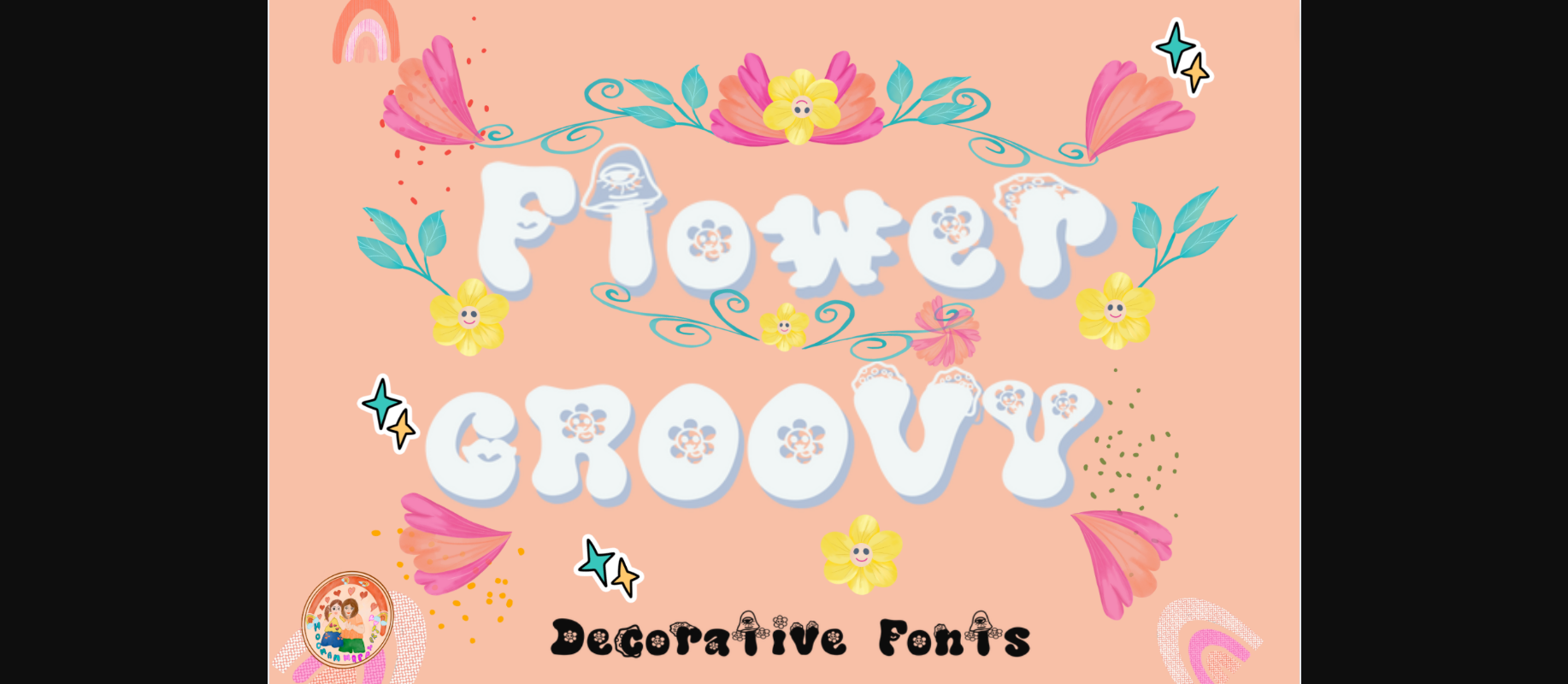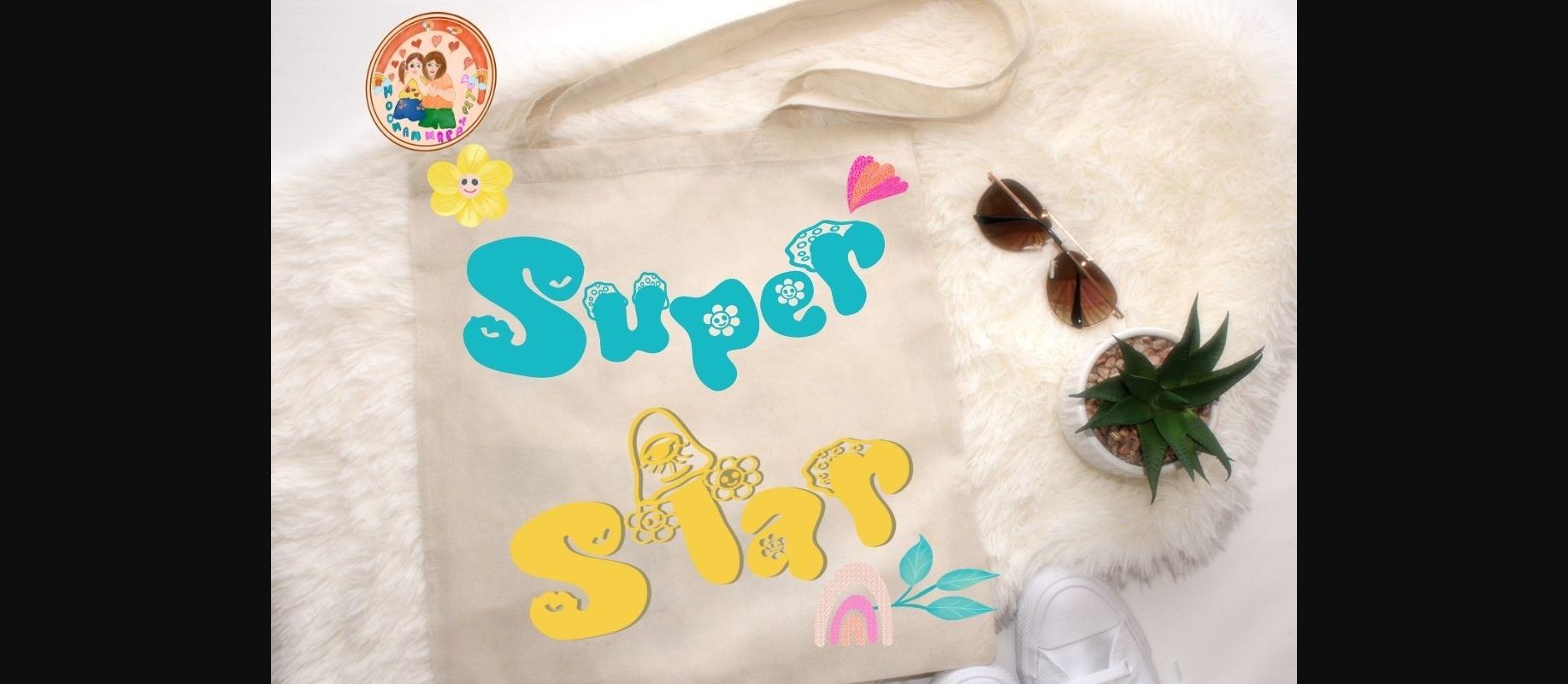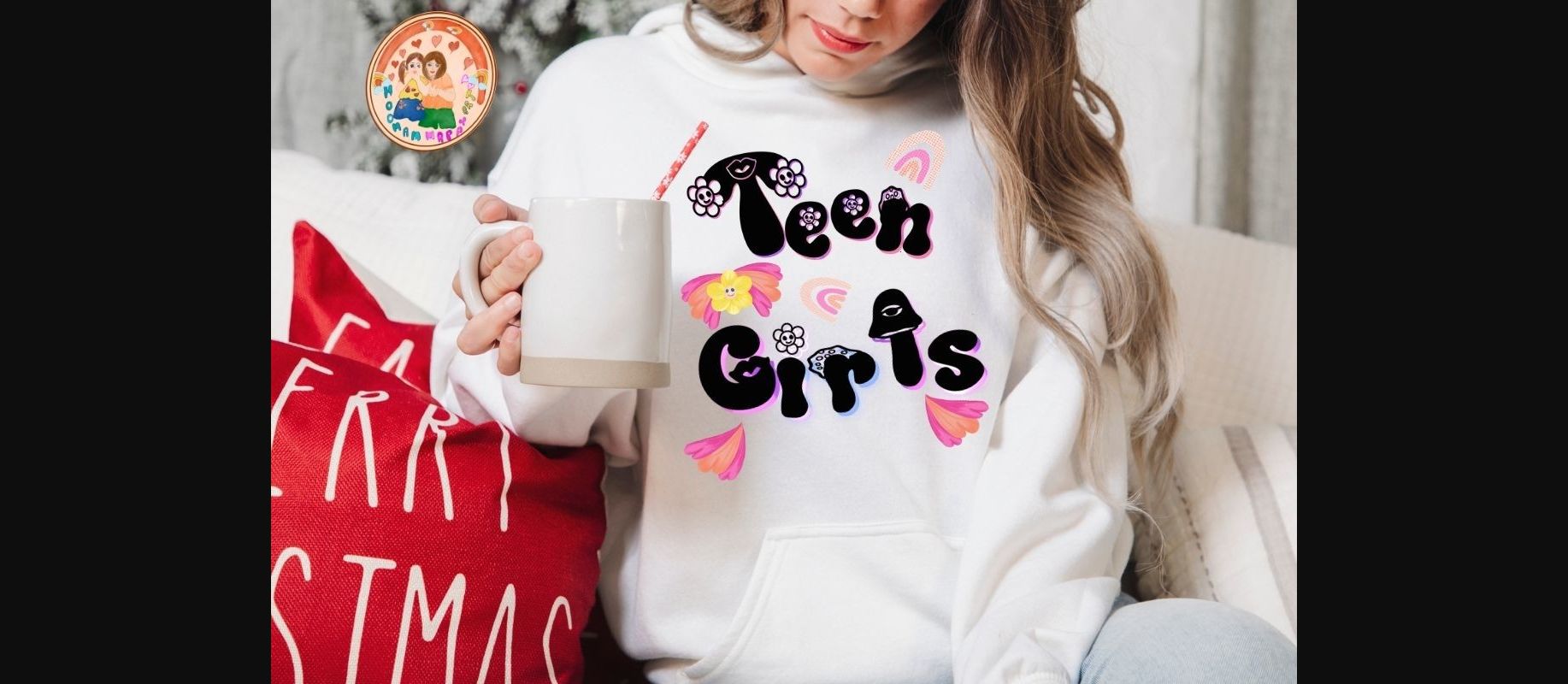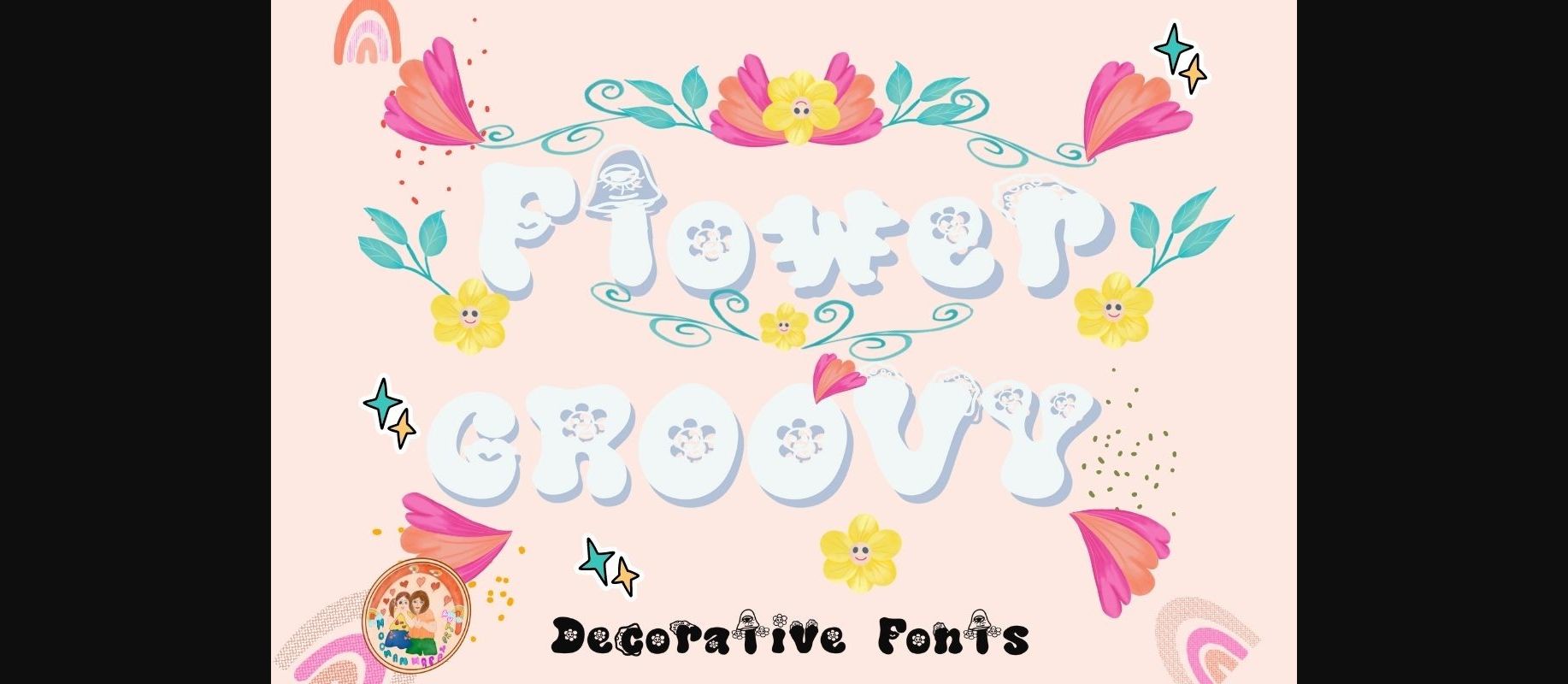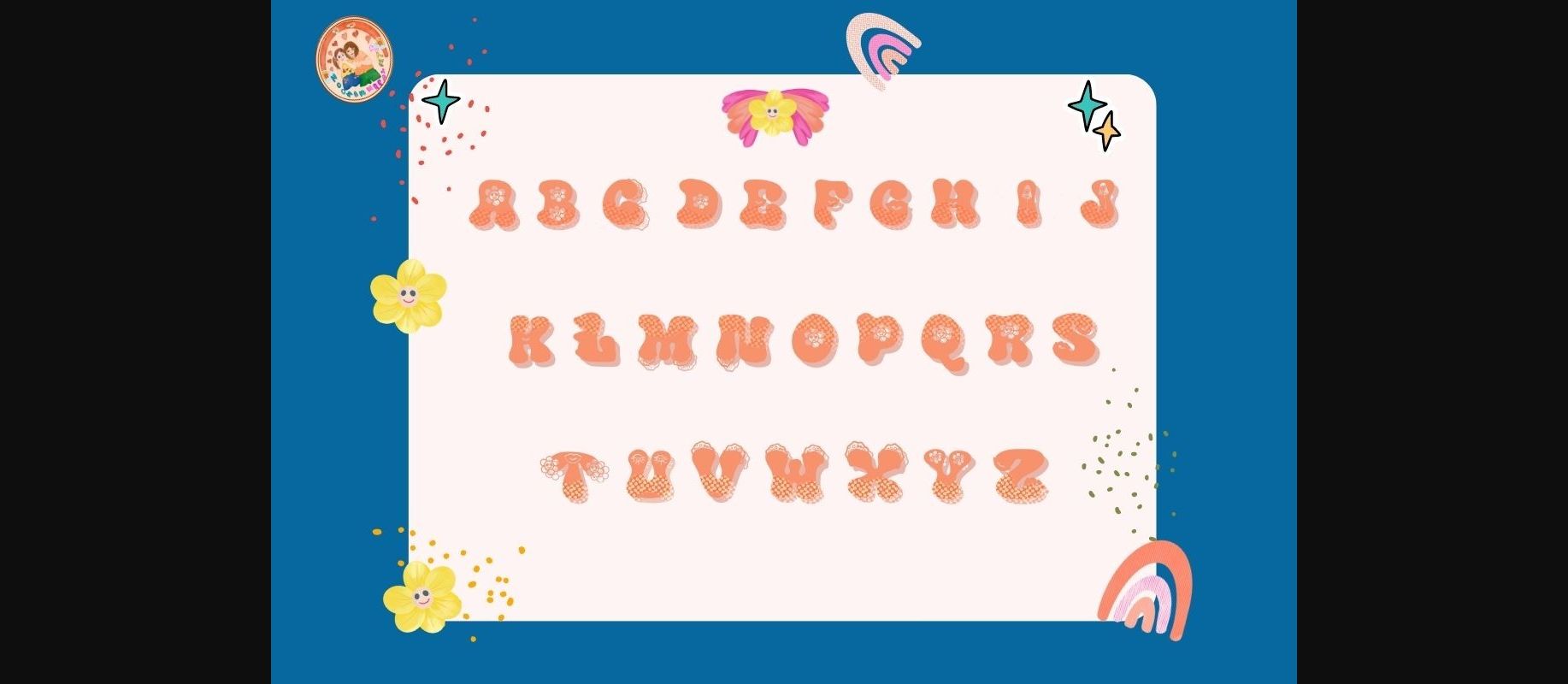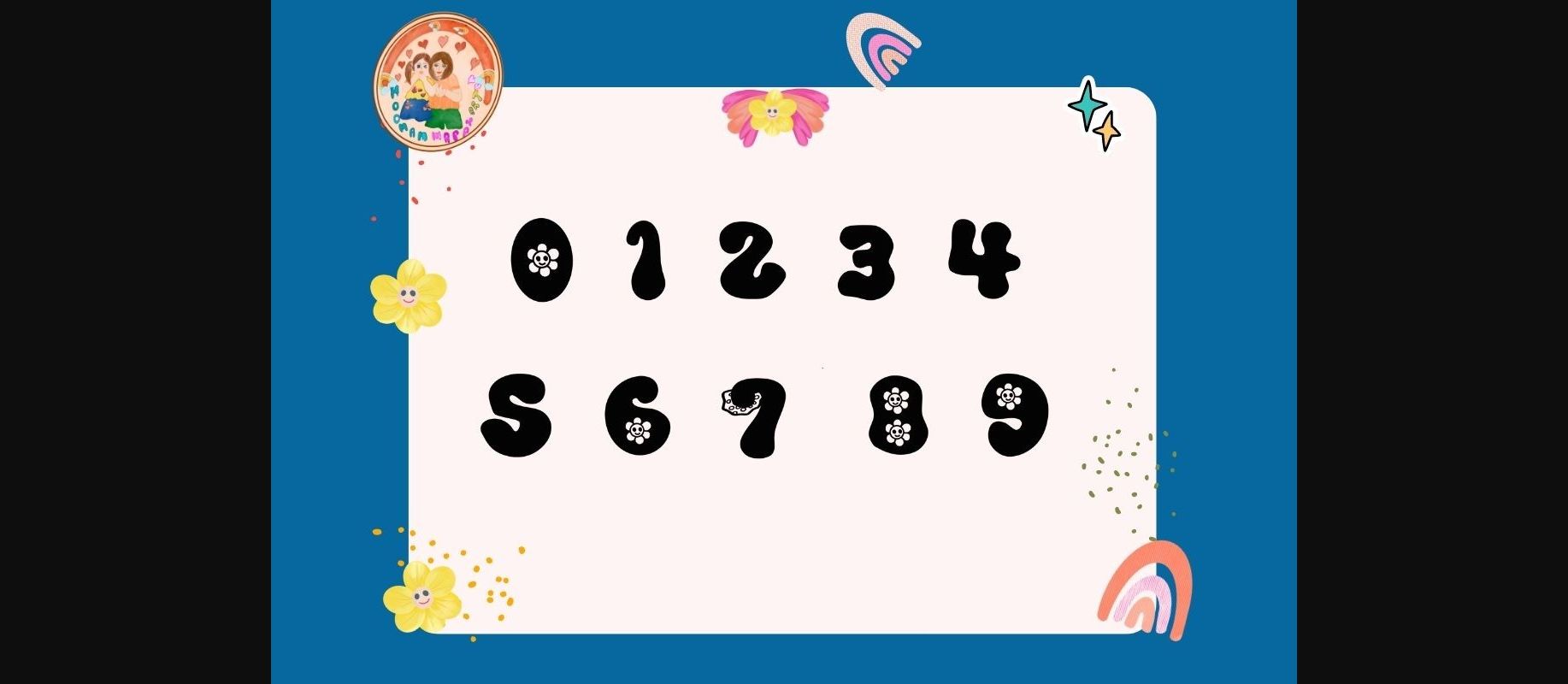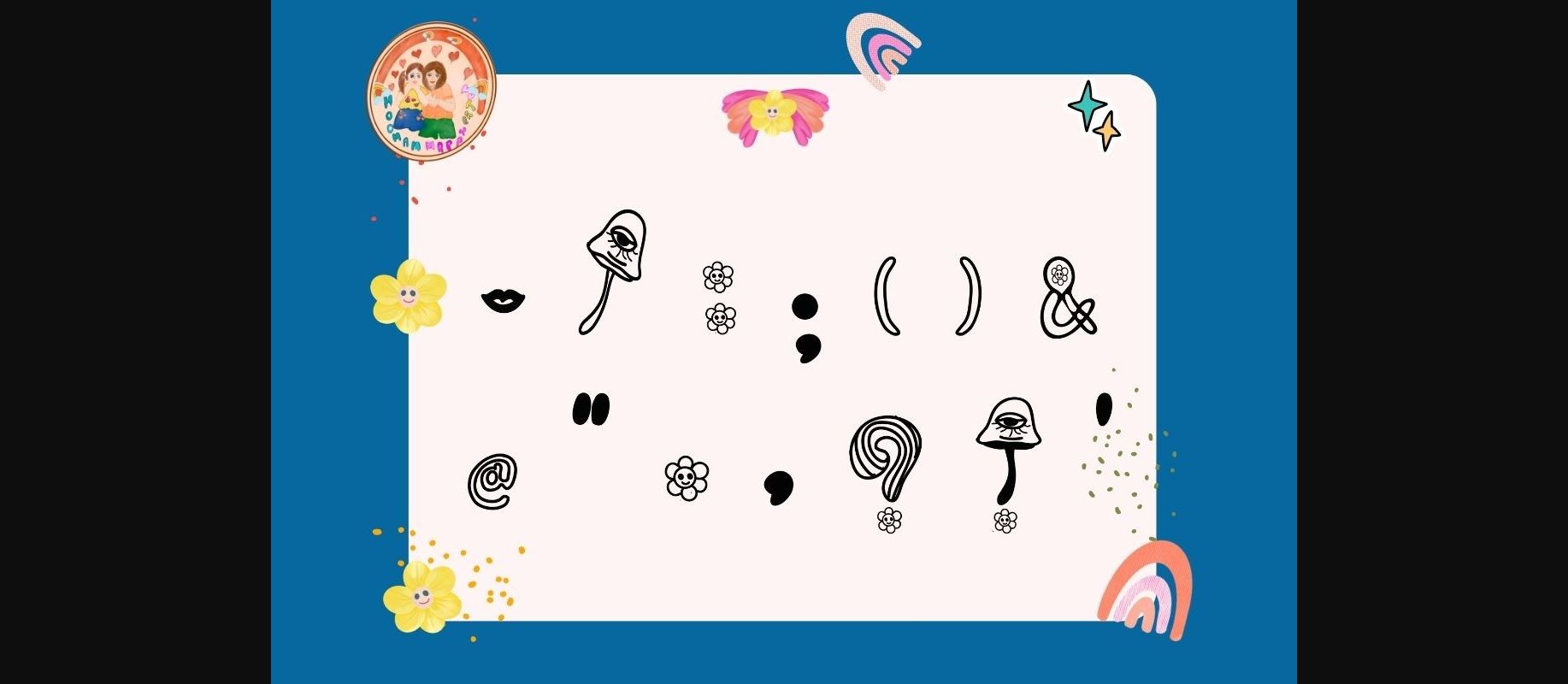
Groovy Flower Font
About Groovy Flower Font
Groovy Flower font is a delightful blast from the past, bringing back the vibrant spirit of the retro era. This decorative typeface is adorned with funky and colorful flower motifs, evoking a sense of nostalgia and fun. Whether you’re designing invitations or posters, or just want to add a groovy touch to your creative projects, Groovy Flower font is your go-to choice for a fresh burst of vintage charm.